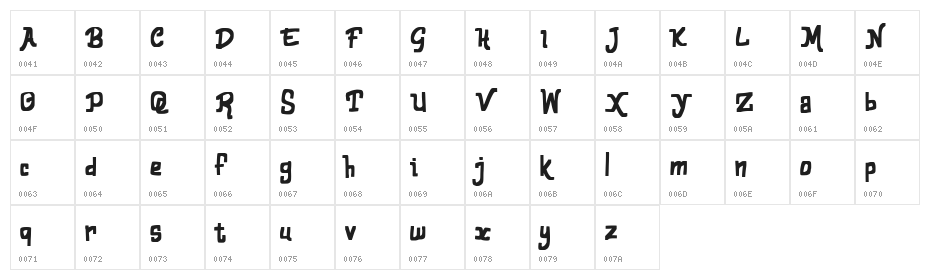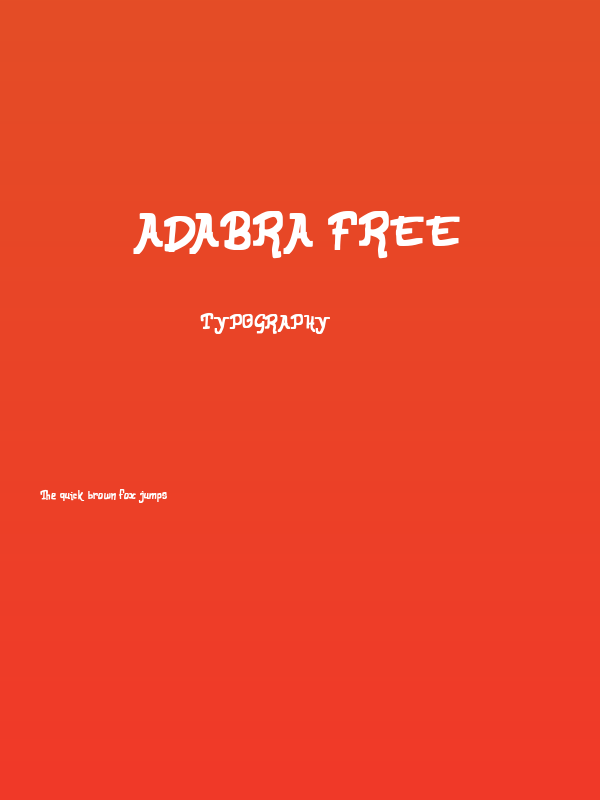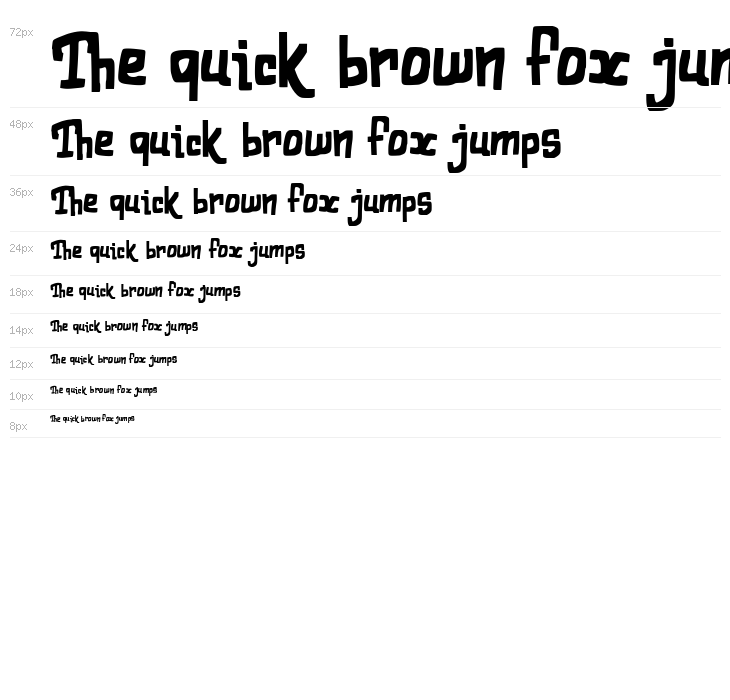
Adabra FREE Font
Adabra FREE Description
This font features a playful and whimsical design, characterized by its bold and irregular strokes. The letters have a hand-drawn appearance, with varying thicknesses and unique, quirky shapes that give it a lively and energetic feel. The uppercase and lowercase letters maintain a consistent style, with some characters having exaggerated curves and angles. The numbers and special characters follow the same playful aesthetic, making the font suitable for creative and informal projects. Its distinct style makes it stand out, adding a touch of fun and personality to any design.
| Proposed Projects | Ideal for children's books, playful branding, posters, and creative invitations. |